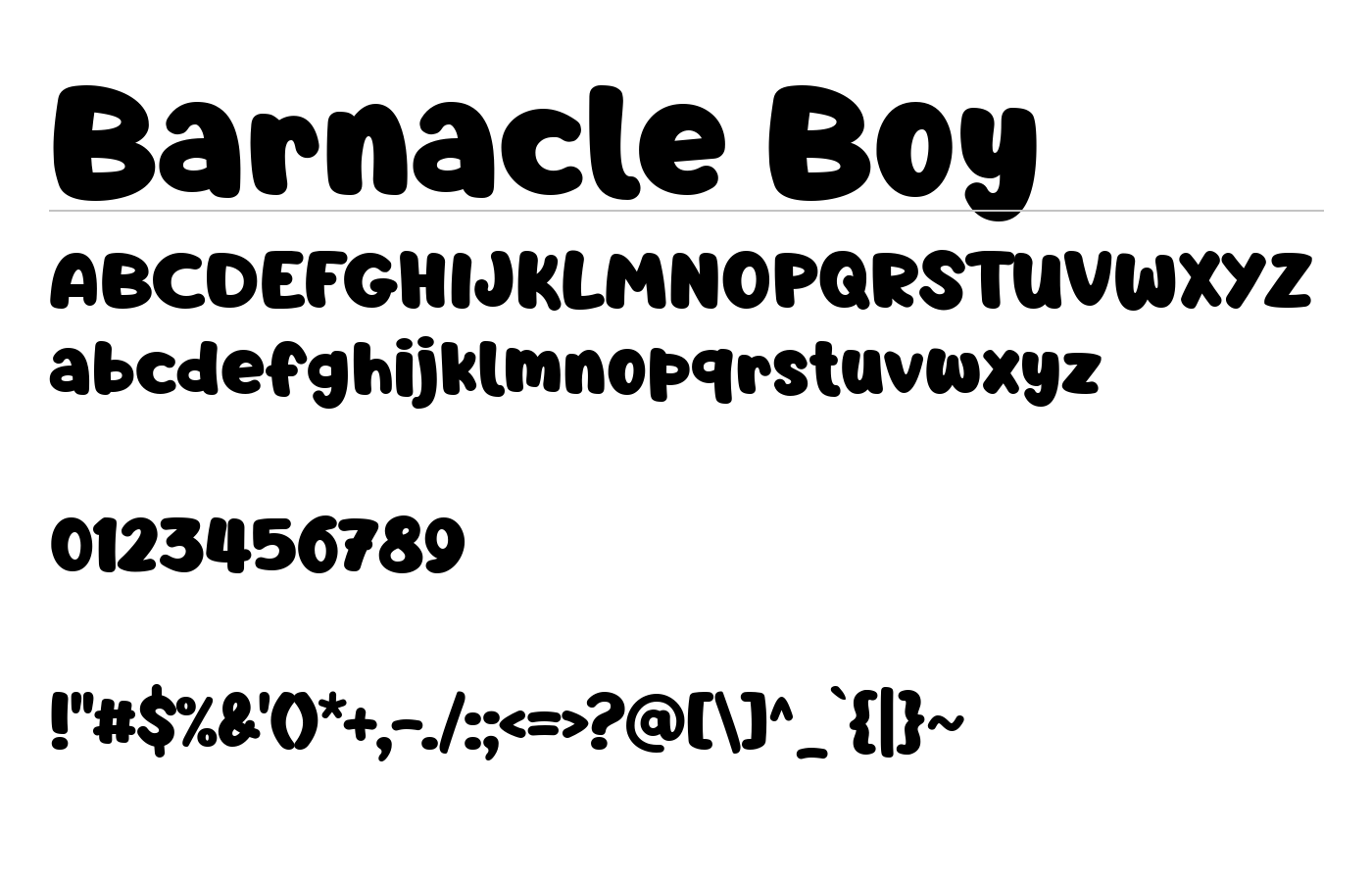
Barnacle Boy is a bold, playful sans serif font with rounded, chunky letterforms that give it a friendly and approachable feel. Its consistent stroke weight and casual curves make it ideal for fun, informal designs such as children's books, posters, or branding that needs a whimsical touch. The font works best in headlines or display settings where its lively personality can stand out and engage viewers.